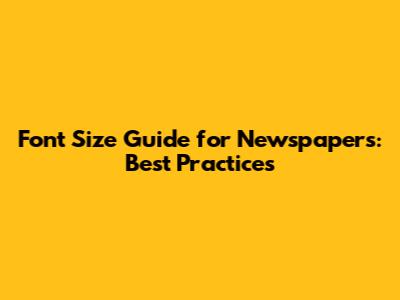
Headlines: Headlines are your attention-grabbers, so they need to be prominent. A good range is 24-72 points, depending on the size of the headline and the importance of the story. Use larger fonts for front-page stories and smaller fonts for inside pages. Keep in mind that the font choice also matters; a bolder, more impactful font can make a smaller point size appear larger and more dramatic. Also, consider the headline's length; longer headlines may need to be set in a slightly smaller size to prevent them from wrapping awkwardly or overwhelming the page. Experiment with different sizes and fonts to find the perfect balance that effectively captures the reader's attention and accurately reflects the story's significance.
Body Text: This is the bread and butter of your newspaper. Aim for 10-12 points for optimal readability. This size is large enough to be easily read without straining the eyes, but not so large that it looks childish or wasteful. When choosing a font for body text, prioritize clarity and legibility. Serif fonts like Times New Roman or Garamond are often preferred for their traditional and readable appearance, but sans-serif fonts like Arial or Helvetica can also work well, especially in modern newspaper designs. It's also crucial to consider the line height (leading), which should be set to allow for comfortable reading without the lines feeling too cramped or too far apart. Test different font and leading combinations to find the most comfortable and readable option for your target audience. Remember, the goal is to make the reading experience as effortless and enjoyable as possible.
Subheadings: Subheadings break up the body text and make it easier to scan the article. Use a font size that is slightly larger than the body text, around 12-14 points. This creates a clear visual distinction between the subheadings and the body text, allowing readers to quickly identify the main points of the article. Choose a font that complements the body text font but is slightly bolder or more distinctive to draw attention to the subheadings. Consistent use of subheadings throughout the newspaper helps to create a structured and organized layout, making it easier for readers to navigate the content and find the information they're looking for. Experiment with different font styles and sizes to find the perfect balance that effectively highlights the subheadings and enhances the overall readability of the article.
Captions: Captions provide context for images and should be easy to read but not distracting. A font size of 8-10 points is generally appropriate. Place the captions close to the corresponding images to avoid confusion, and use a font that is clear and legible, even at a smaller size. Consider using a slightly different font style or color to further distinguish the captions from the body text, but ensure that the chosen font remains consistent throughout the newspaper. Effective captions should be concise and informative, providing essential details about the image without overwhelming the reader. Pay attention to the alignment and spacing of the captions to ensure they are visually appealing and easy to read. By carefully crafting and positioning captions, you can enhance the overall impact of your images and provide valuable context for your readers.
Pull Quotes: These are short, attention-grabbing excerpts from the article that are often set in a larger or bolder font. Use a font size that is significantly larger than the body text, around 14-18 points, to make them stand out. Choose a font that complements the overall design of the newspaper but is also distinctive enough to catch the reader's eye. Place the pull quotes strategically within the article to break up the text and highlight key points. Ensure that the pull quotes are properly attributed to the original source, and use quotation marks to indicate that they are direct quotes. Well-placed and well-designed pull quotes can enhance the visual appeal of the newspaper and make it more engaging for readers. Experiment with different font styles, sizes, and placements to find the perfect balance that effectively captures the reader's attention and reinforces the main message of the article.
Footnotes: Usually containing references or sources, should be the smallest text of the content. The ideal size is 8 points. Be sure that the font is still readable, but not distractive. To highlight this part from the content, you can use different text styles, such as italic. Also, ensure that the symbols used to recall the footnotes, such as numbers, are easily visible.
Serif Fonts: These fonts have small decorative strokes (serifs) at the end of each letter. They are often considered more traditional and readable for long blocks of text. Examples include Times New Roman, Garamond, and Georgia. The serifs help guide the reader's eye along the line, making it easier to read continuous text. Serif fonts are particularly well-suited for body text in newspapers and books, where readability is paramount. They create a sense of formality and sophistication, making them a popular choice for traditional publications. When selecting a serif font, consider the x-height (the height of the lowercase 'x') and the overall weight of the font. A font with a moderate x-height and a balanced weight will generally provide the best readability. Experiment with different serif fonts to find the one that best suits your newspaper's style and target audience.
Sans-Serif Fonts: These fonts lack the decorative strokes found in serif fonts. They are often considered more modern and clean, making them a good choice for headlines and display text. Examples include Arial, Helvetica, and Verdana. Sans-serif fonts are particularly effective at grabbing the reader's attention and conveying a sense of simplicity and clarity. They are commonly used in websites, posters, and other visual media where readability is important but aesthetics also play a significant role. When choosing a sans-serif font, consider the letter spacing and the overall shape of the letters. A font with adequate letter spacing and well-defined letterforms will be easier to read, especially at smaller sizes. Experiment with different sans-serif fonts to find the one that best complements your newspaper's design and conveys the desired message.
Display Fonts: These are more decorative fonts that are best used sparingly for headlines or other design elements. Examples include script fonts, blackletter fonts, and novelty fonts. Display fonts can add personality and visual interest to your newspaper, but they should be used with caution. Overuse of display fonts can make the newspaper look cluttered and unprofessional. When selecting a display font, consider the overall tone and style of the newspaper. Choose a font that complements the other fonts used in the publication and accurately reflects the intended message. Ensure that the display font is still legible, even at larger sizes, and avoid using it for long blocks of text. A well-chosen display font can enhance the visual appeal of your newspaper and make it more memorable for readers.
Line Height (Leading): The space between lines of text can significantly impact readability. Too little line height can make the text feel cramped, while too much can make it feel disjointed. A good rule of thumb is to set the line height to 120-145% of the font size.
Column Width: The width of the columns in your newspaper can also affect readability. Narrower columns are generally easier to read than wider columns. Aim for a column width that allows for 40-60 characters per line.
Contrast: Ensure there is sufficient contrast between the text and the background. Dark text on a light background is generally the most readable. Avoid using light text on a dark background, as this can be difficult to read.